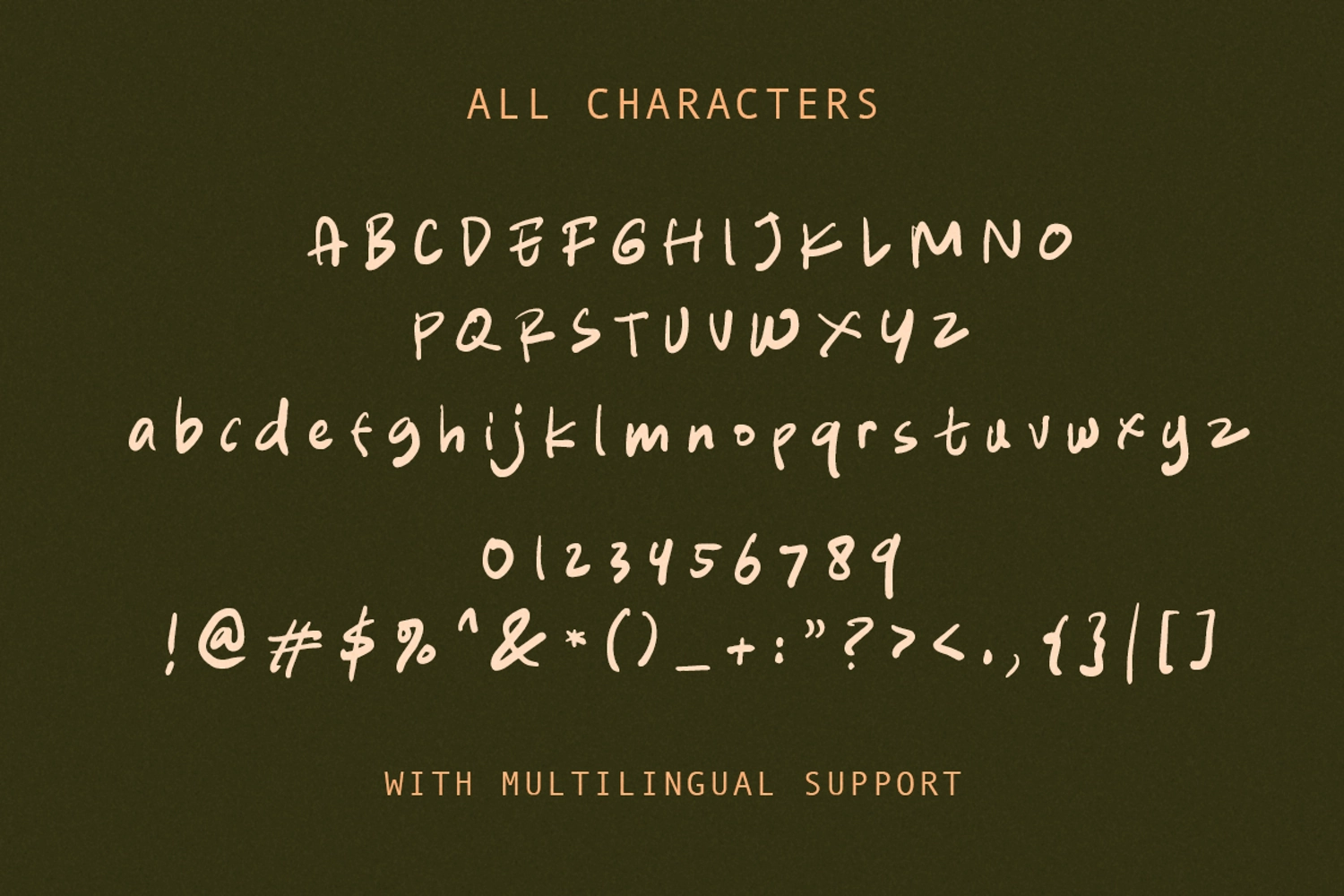
Explore Wonders is a bold handwritten font that will make all your project more unique and handy. With bold touch, this font will make your artwork feels more natural. This font is suitable for quotes & instagram post. Comes with number & symbol! Also support multi language!